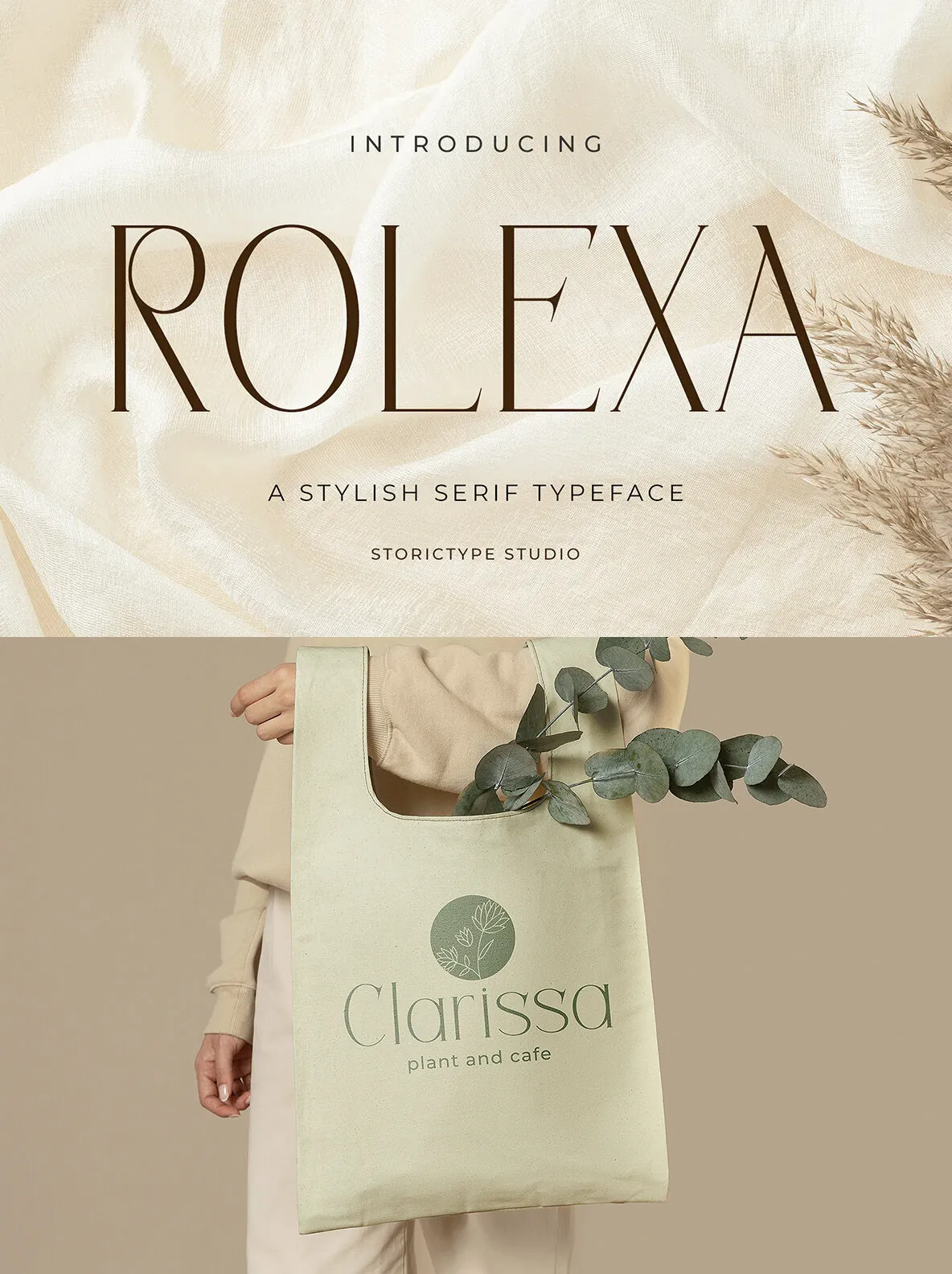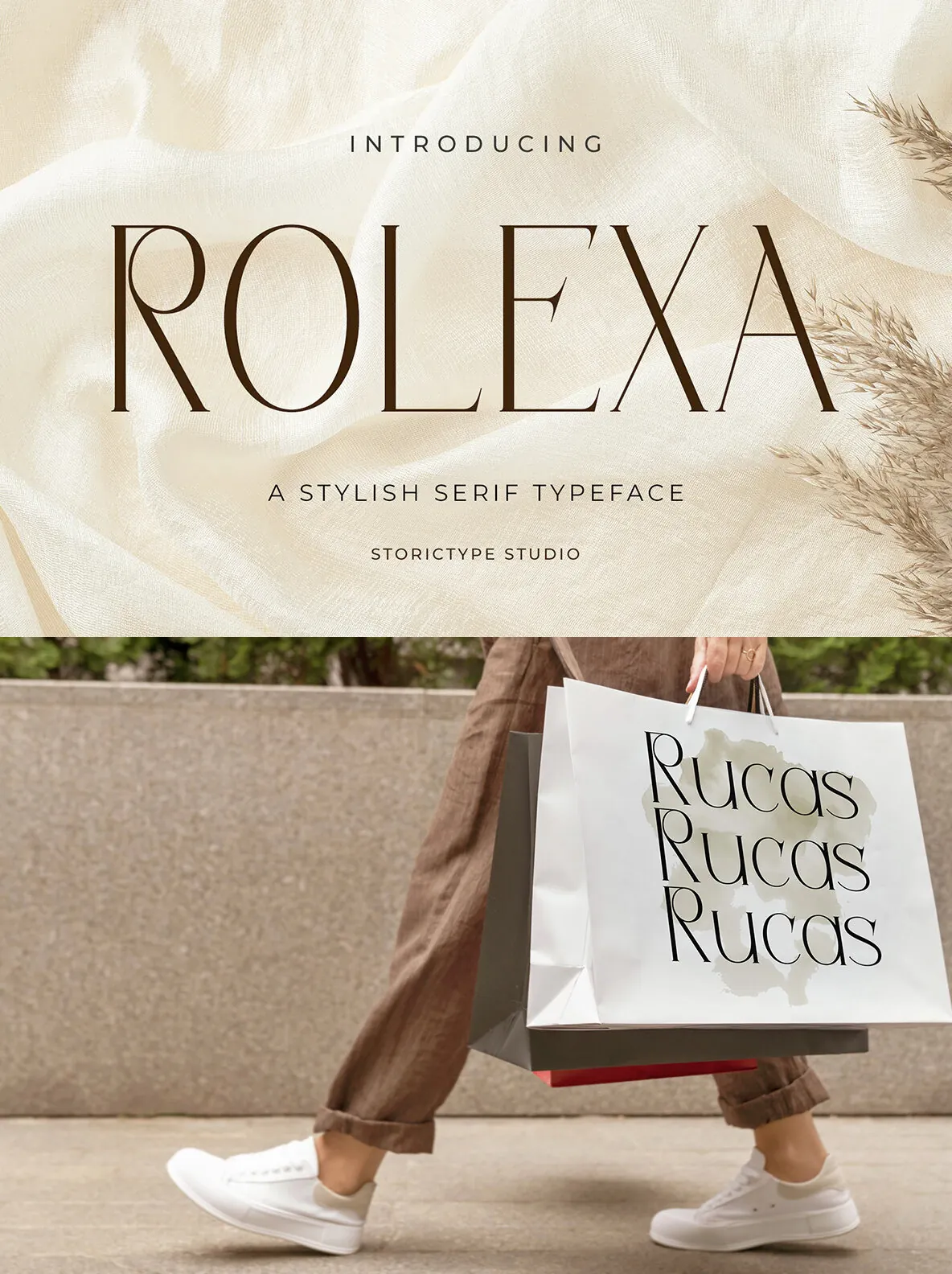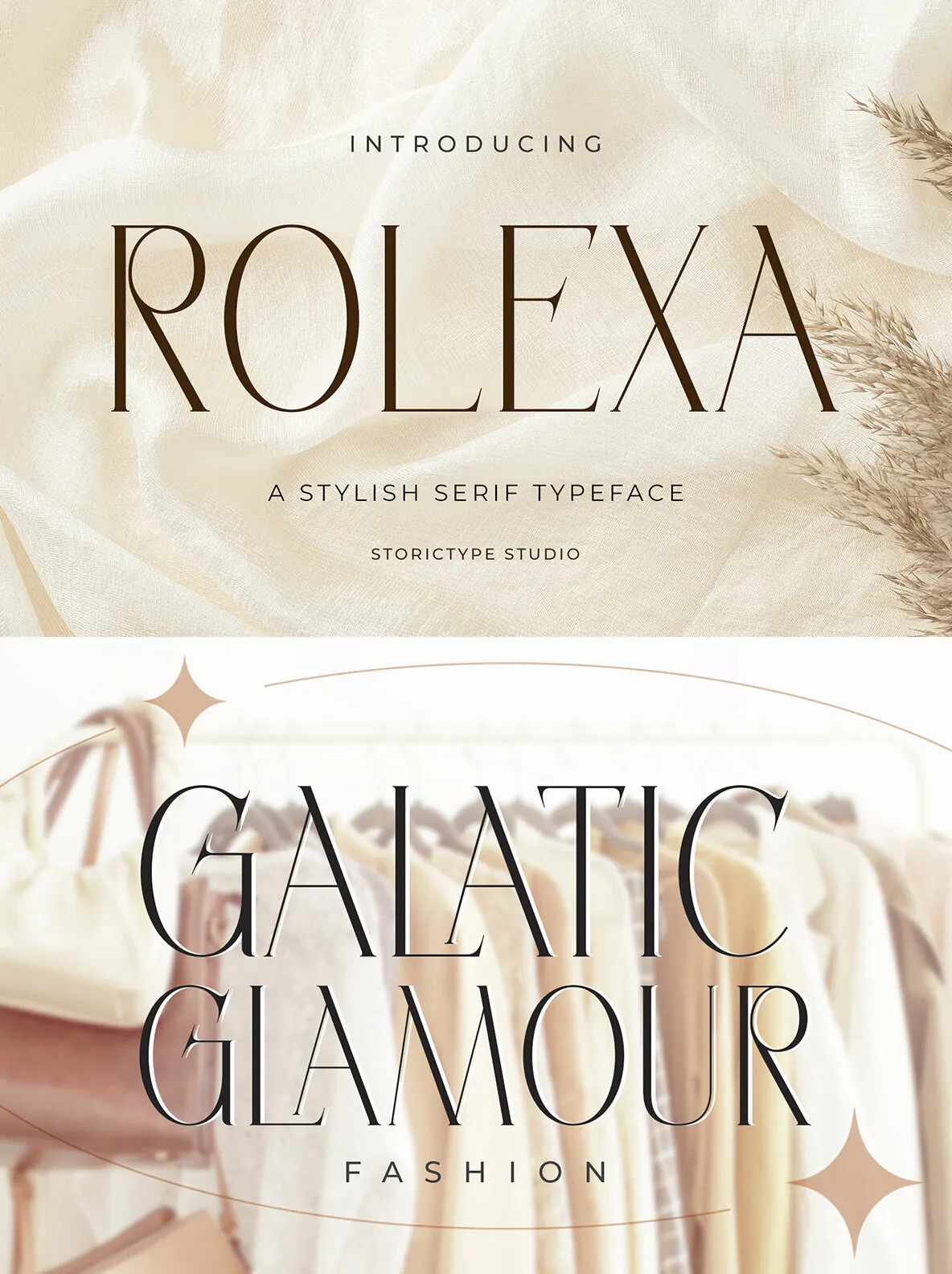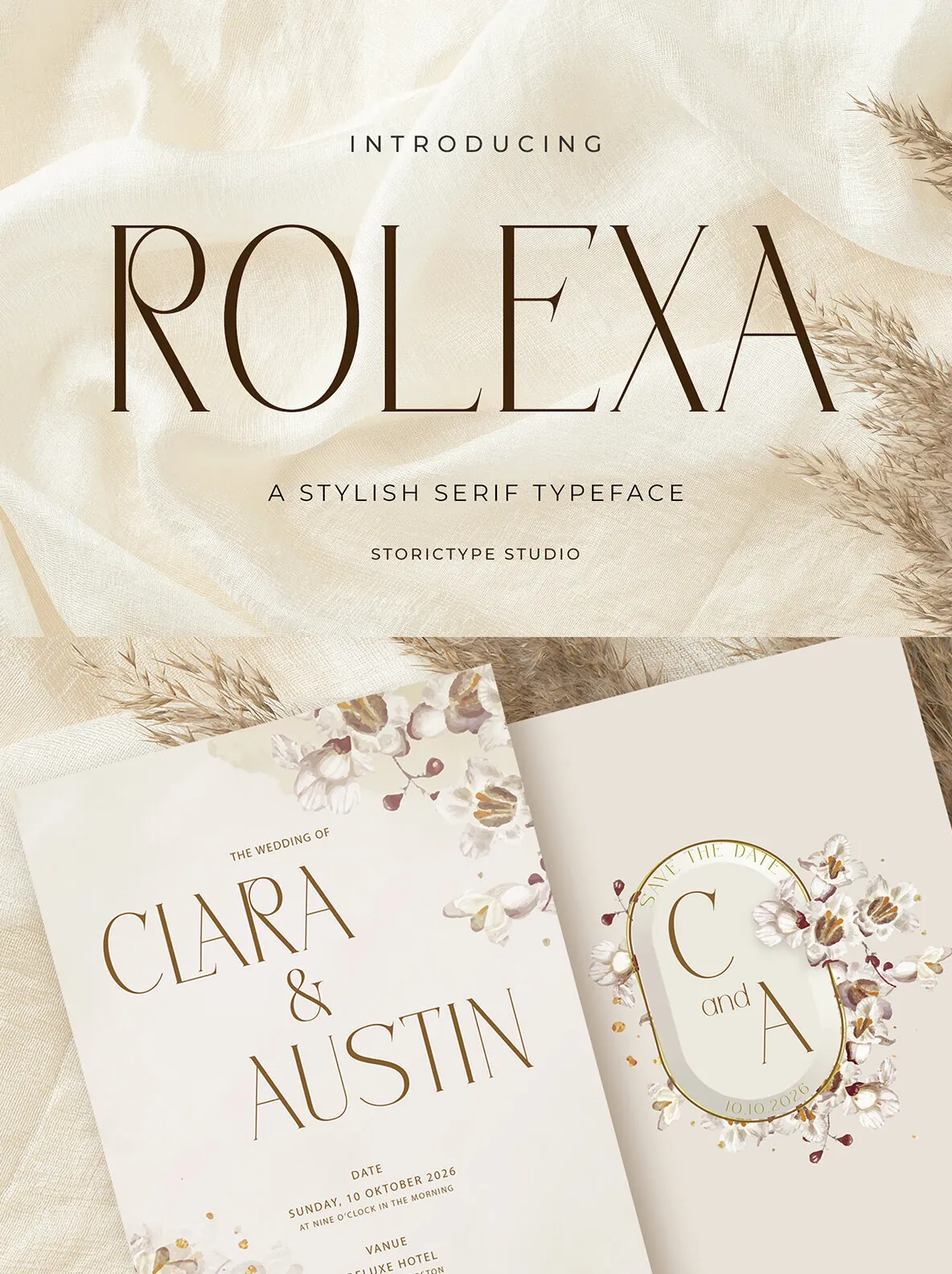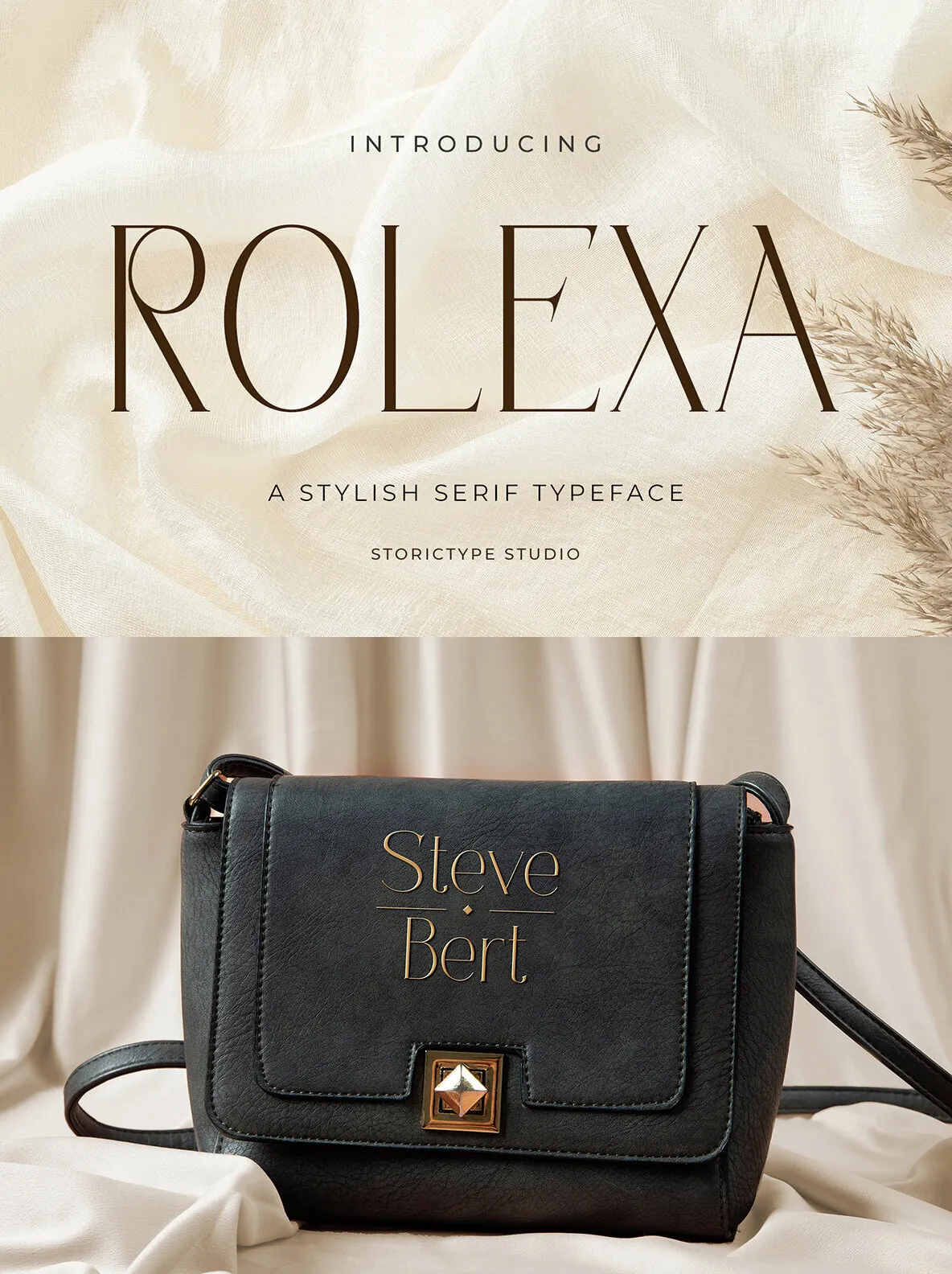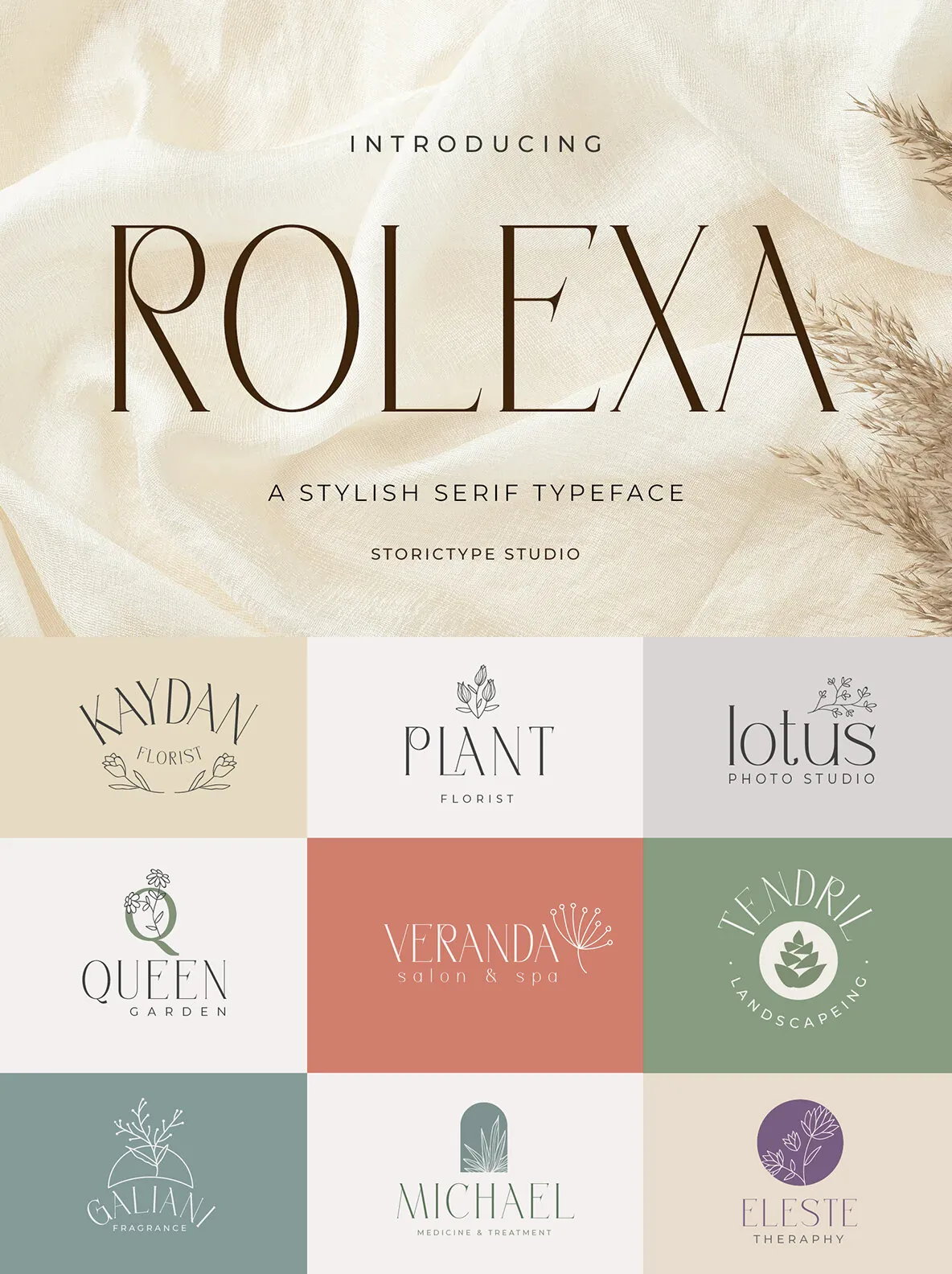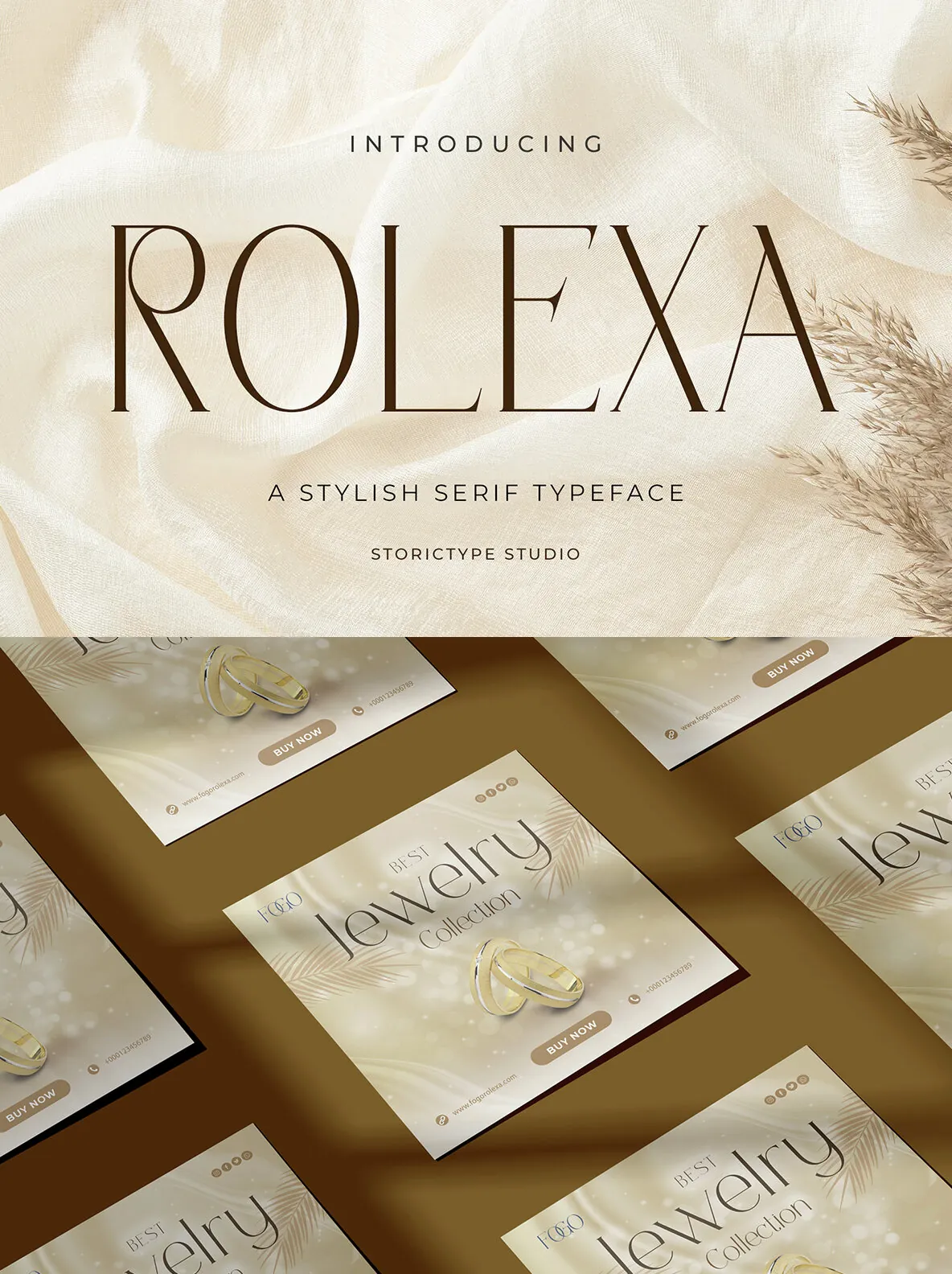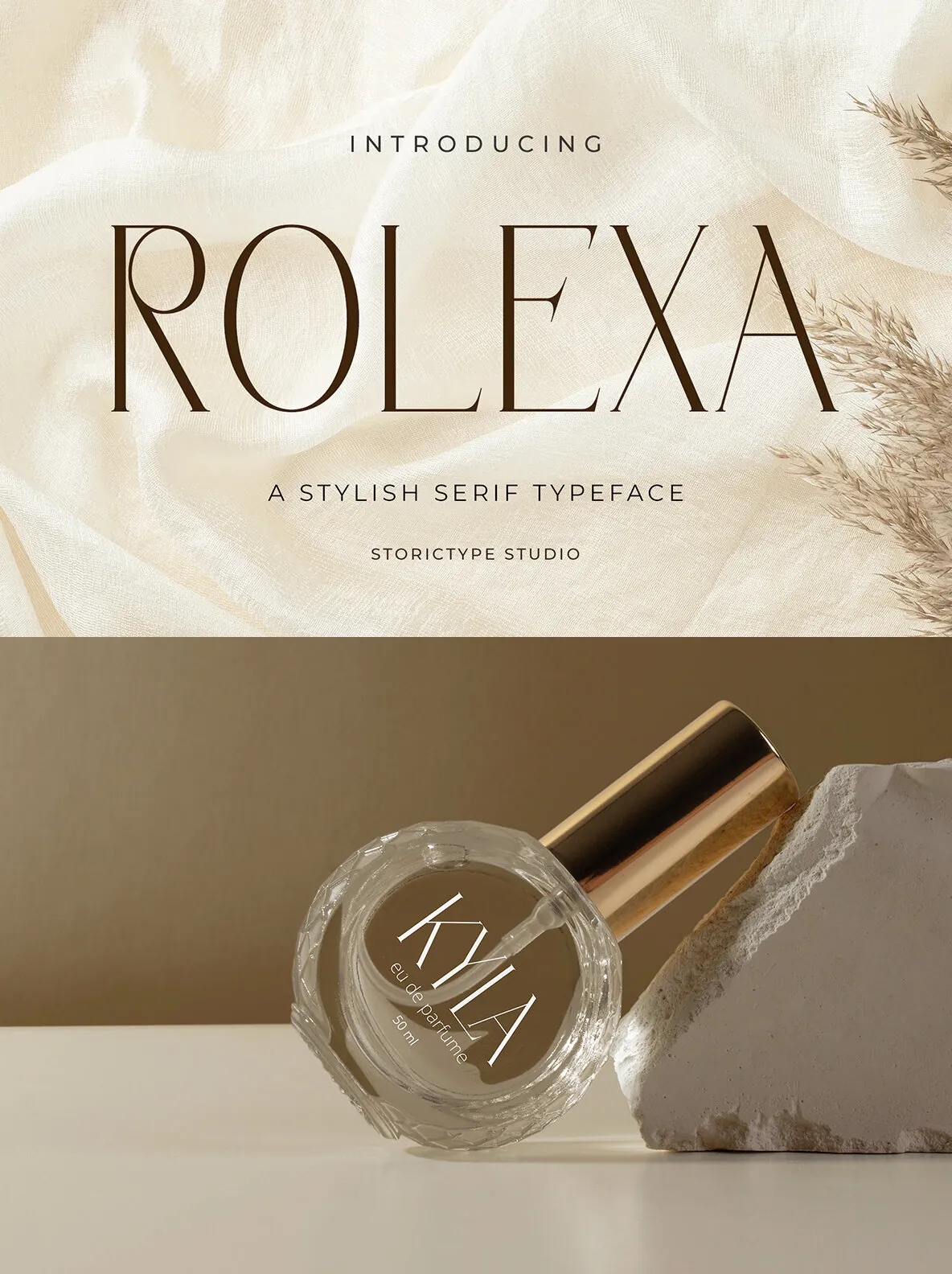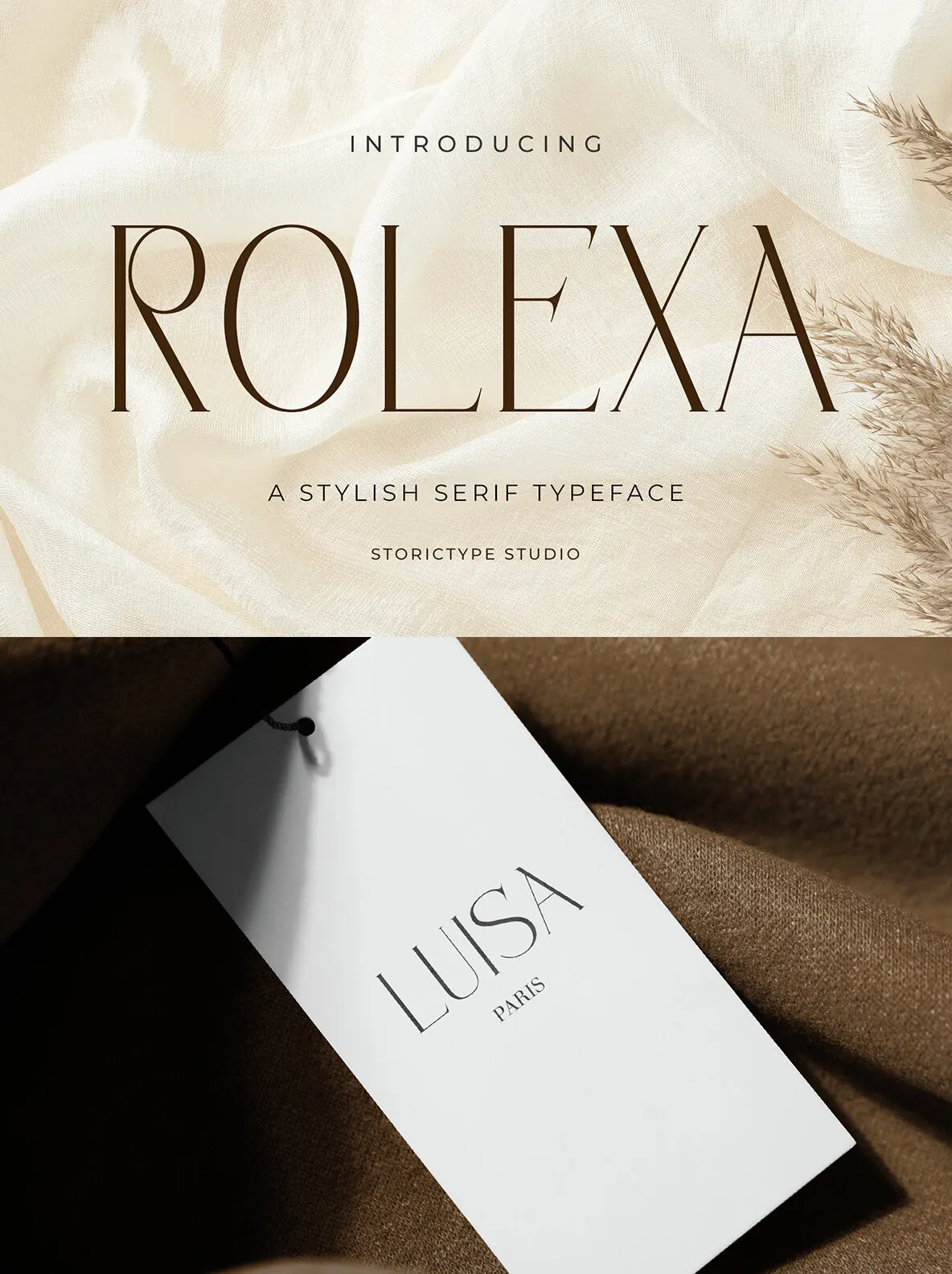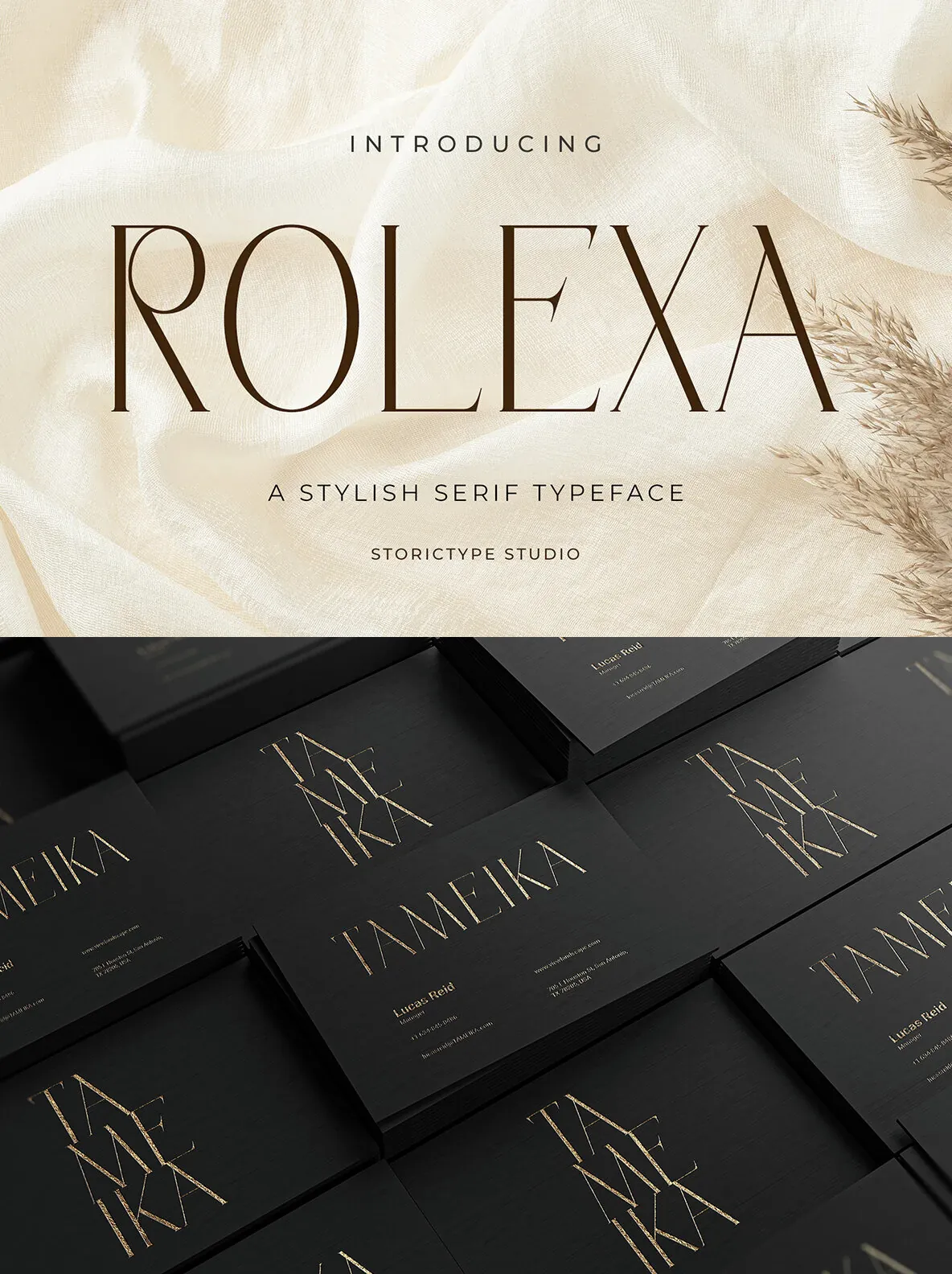
Rolexa: A Versatile Serif Typeface with Luxury Appeal
Rolexa is a meticulously crafted serif typeface, blending influences from both classic and modern eras. Designed to deliver elegance and refinement, this font embodies a luxurious feel, making it ideal for elevating high-end designs. Bring grandeur to your creative projects with Rolexa’s timeless beauty and sophisticated styling.
Versatile Design Applications
Rolexa’s versatile nature allows it to enhance an array of design styles. Whether used for branding, headers, logotypes, posters, magazines, packaging, or art-deco wedding invitations, this typeface adapts seamlessly to various creative needs.